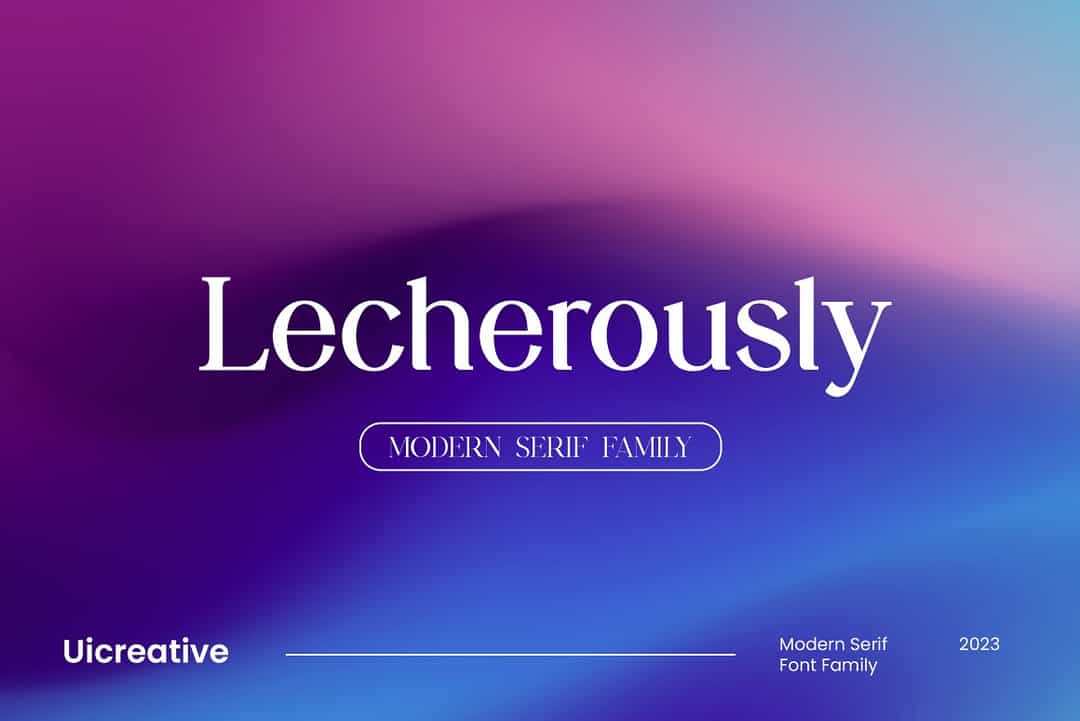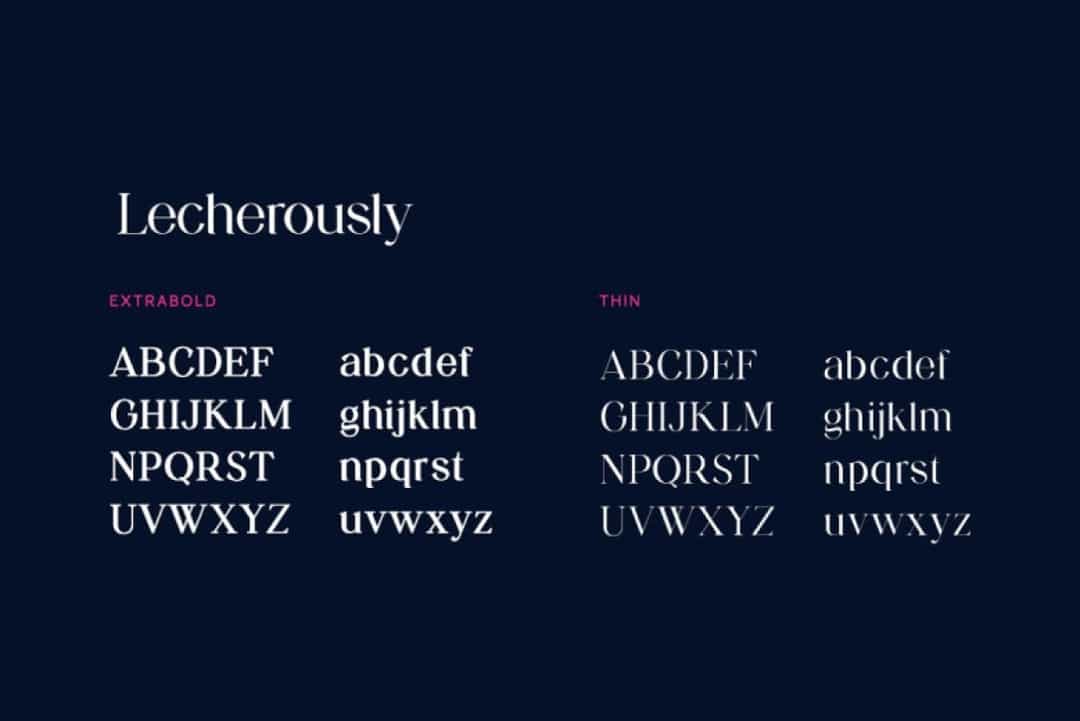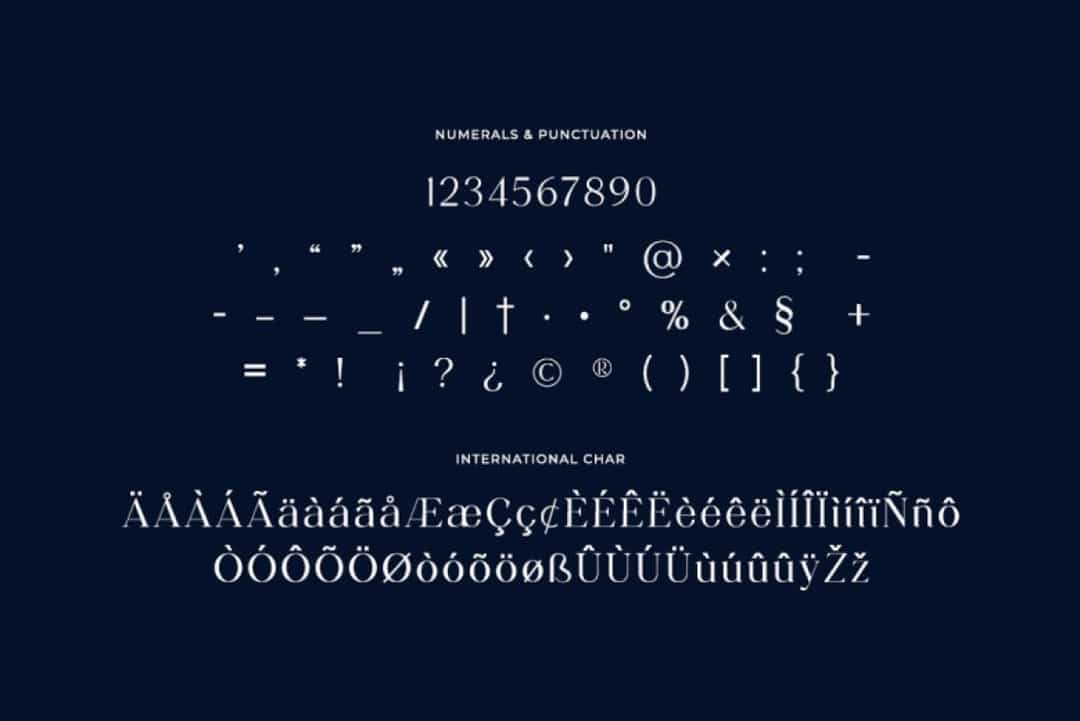
Lecherously is a contemporary serif font family that is elegant, beautiful and contemporary – perfect for many designs including stationary, signatures, logos wedding, typography quotes magazine, book covers headers for websites as well as packaging, clothing, branding designs, etc.